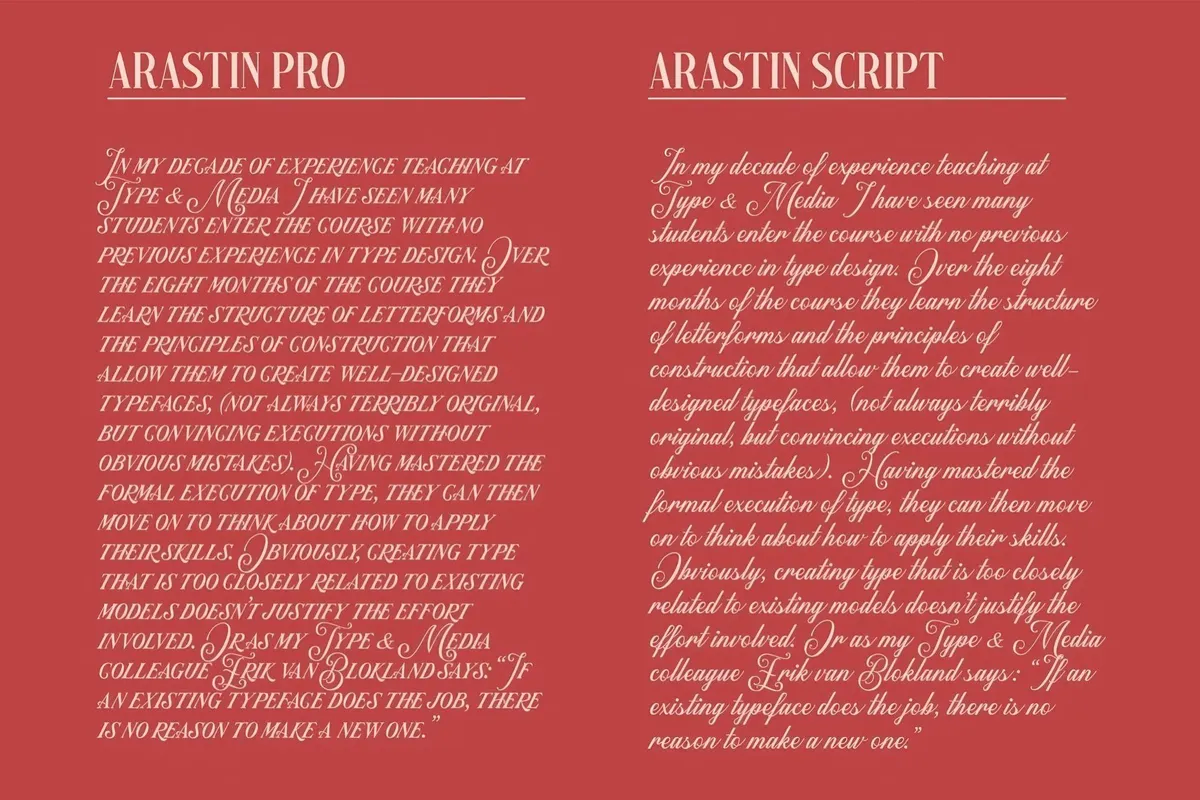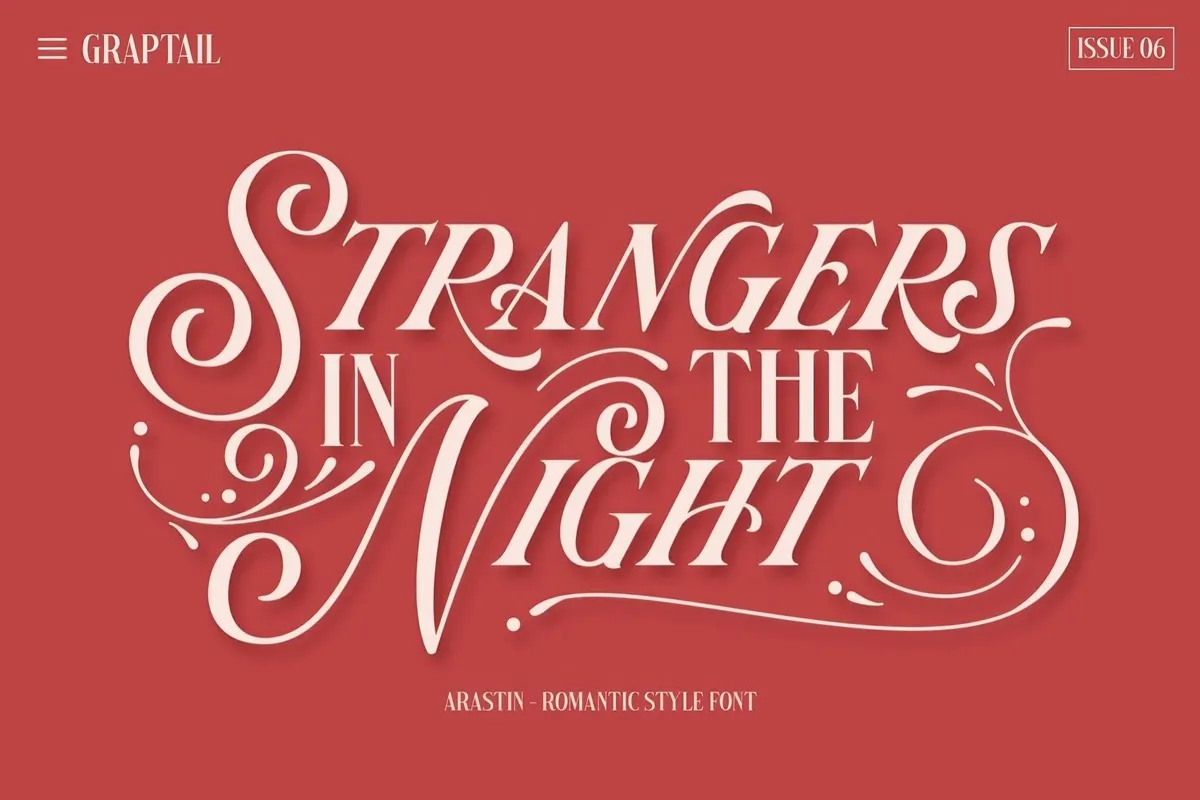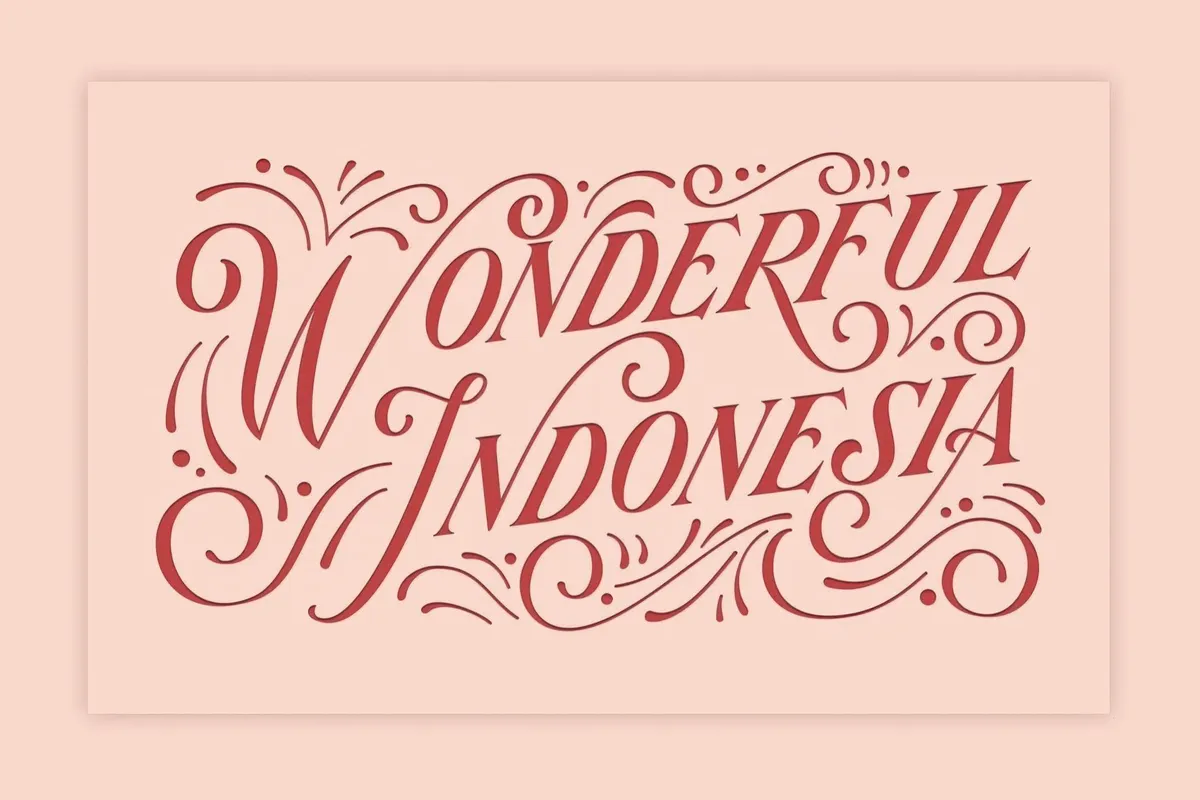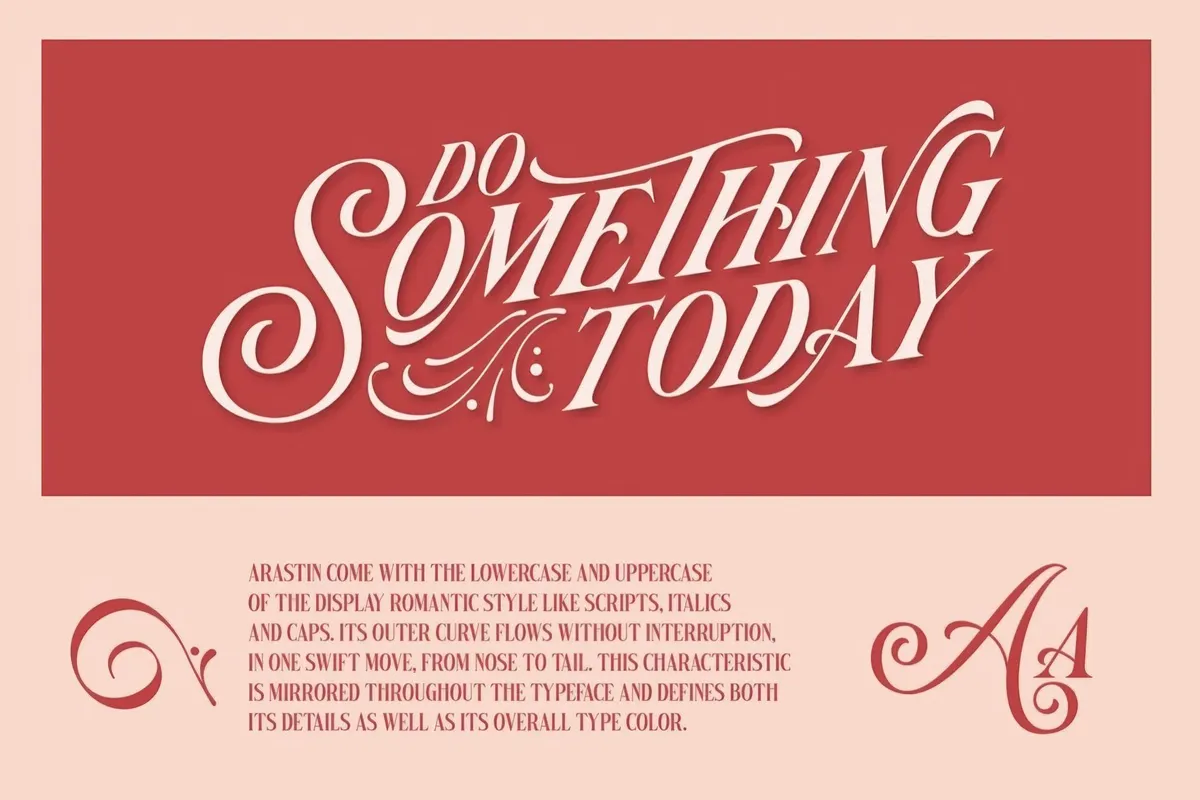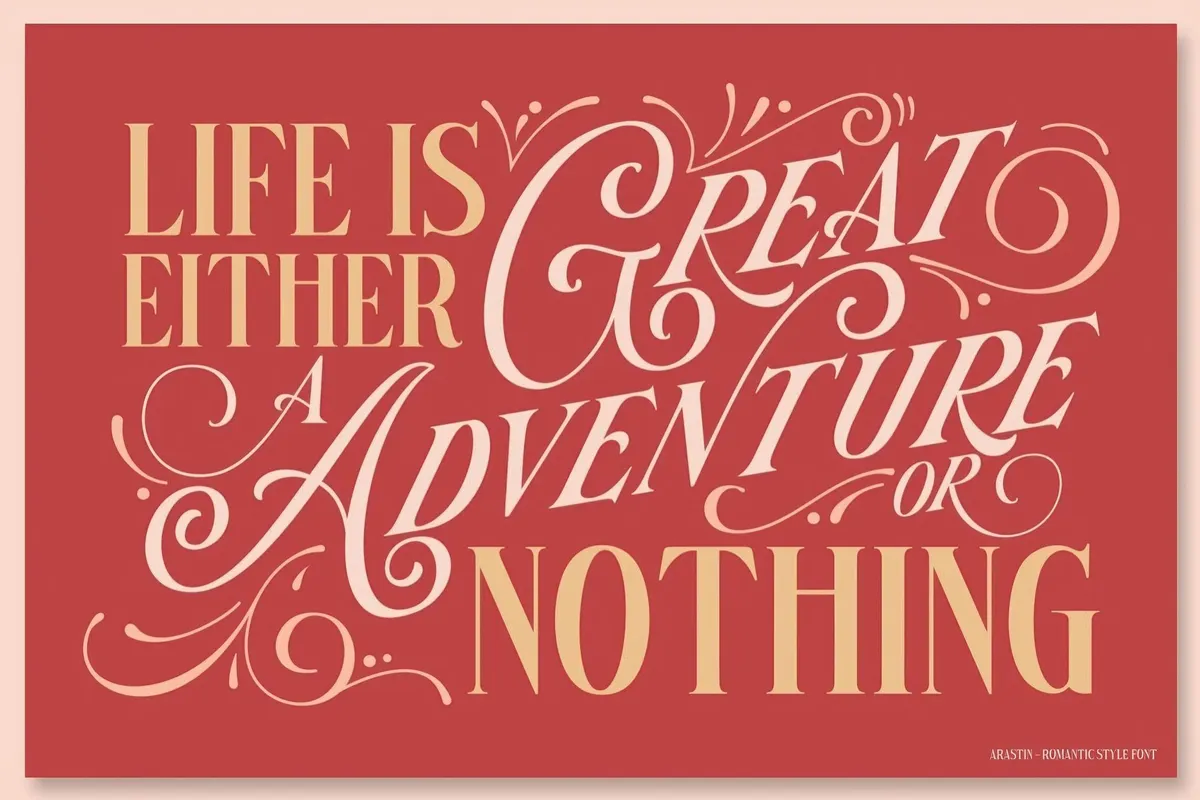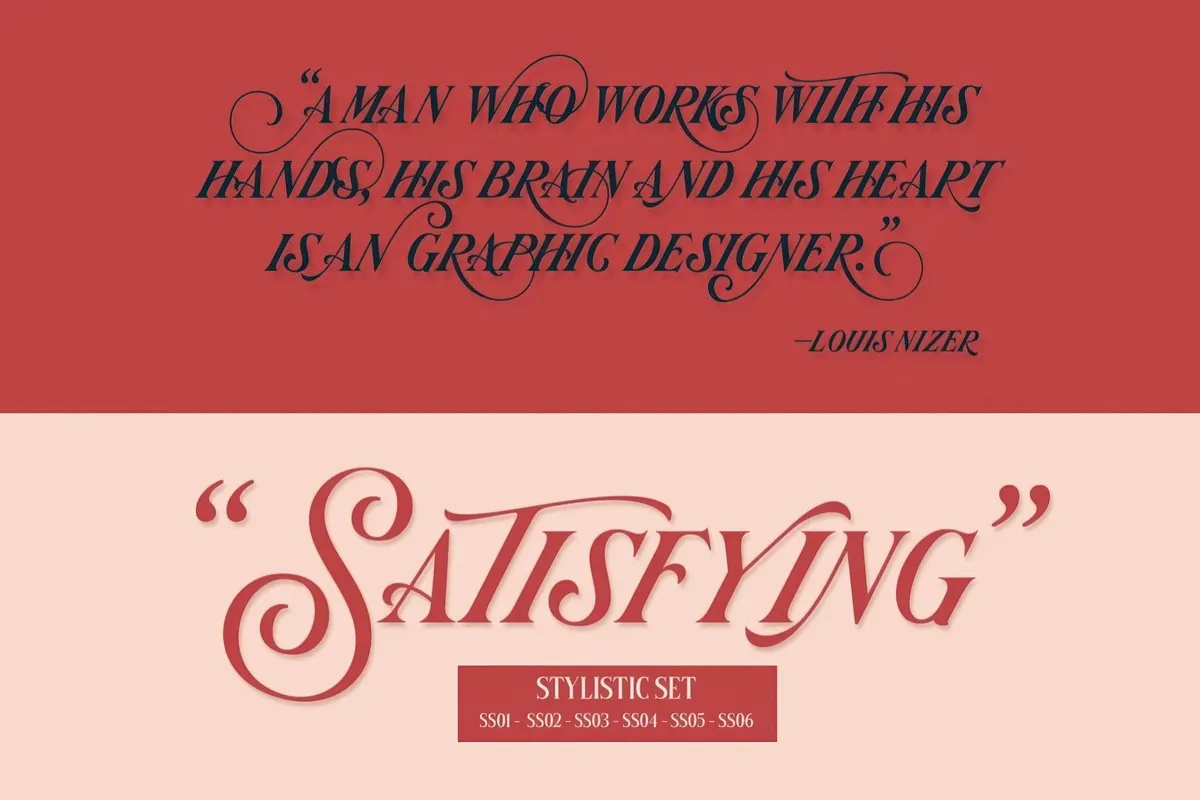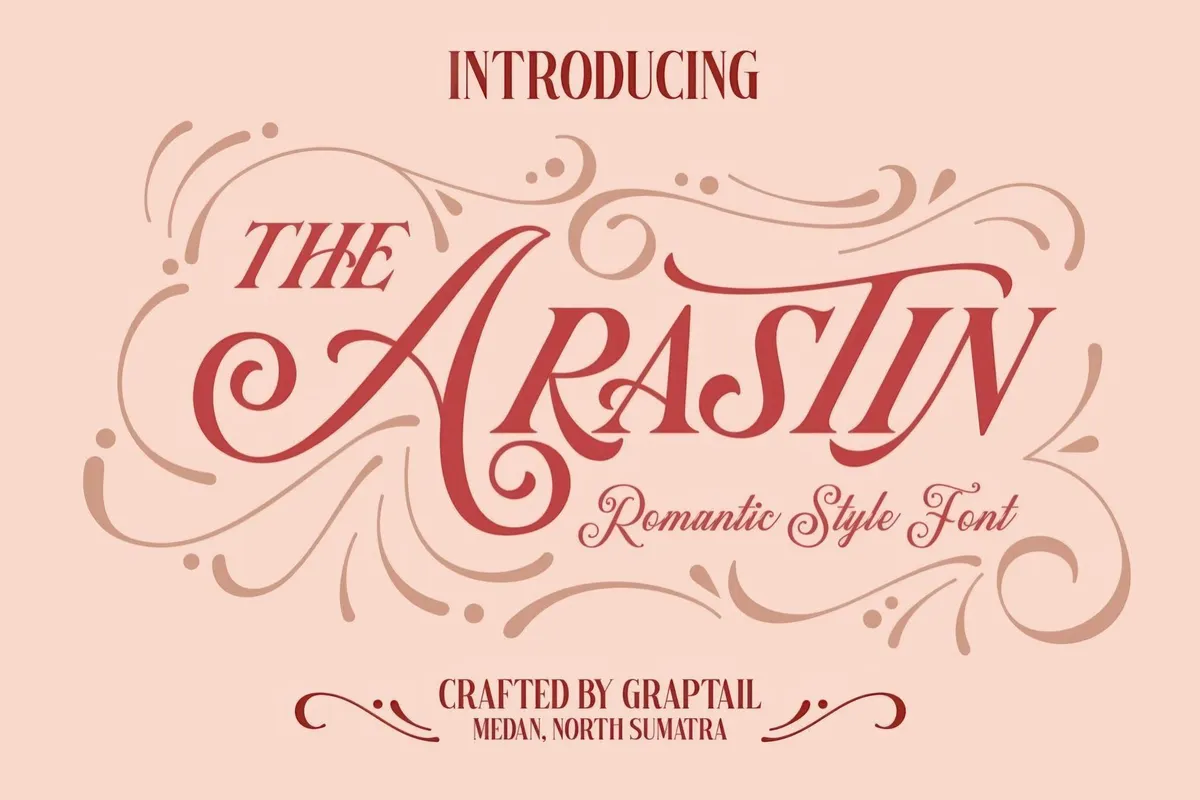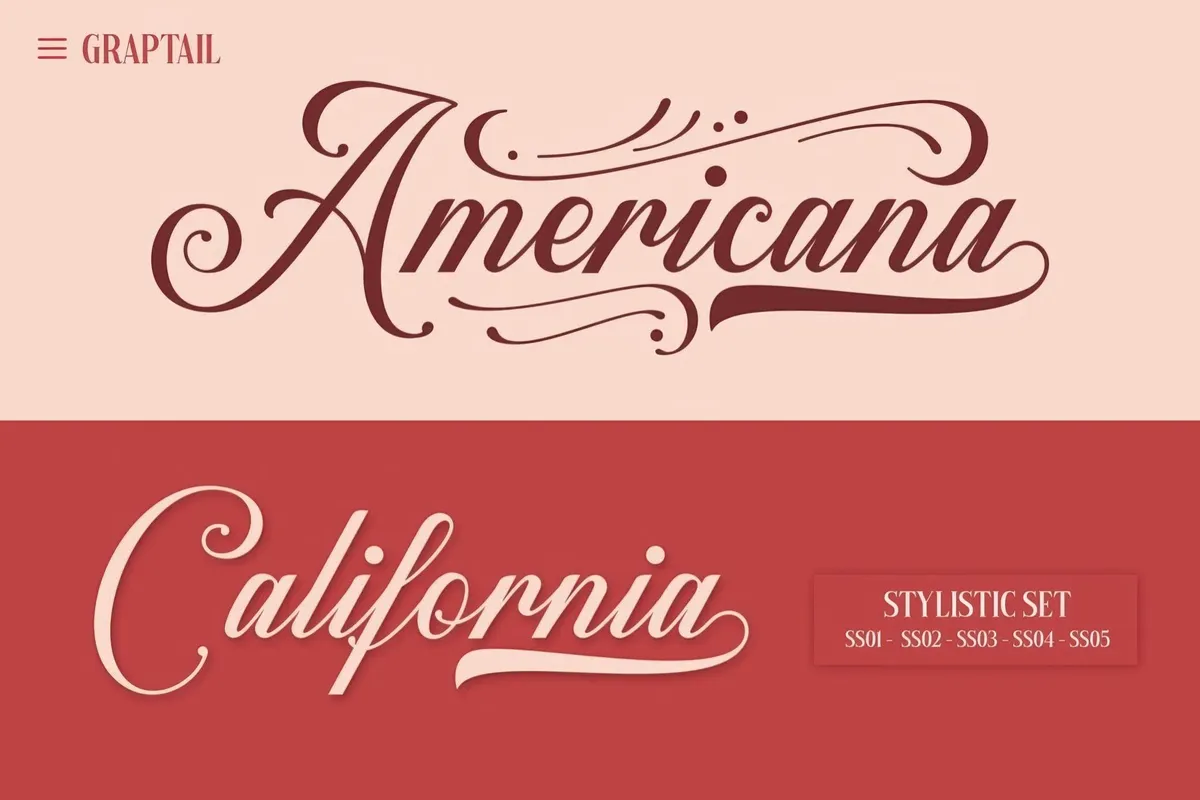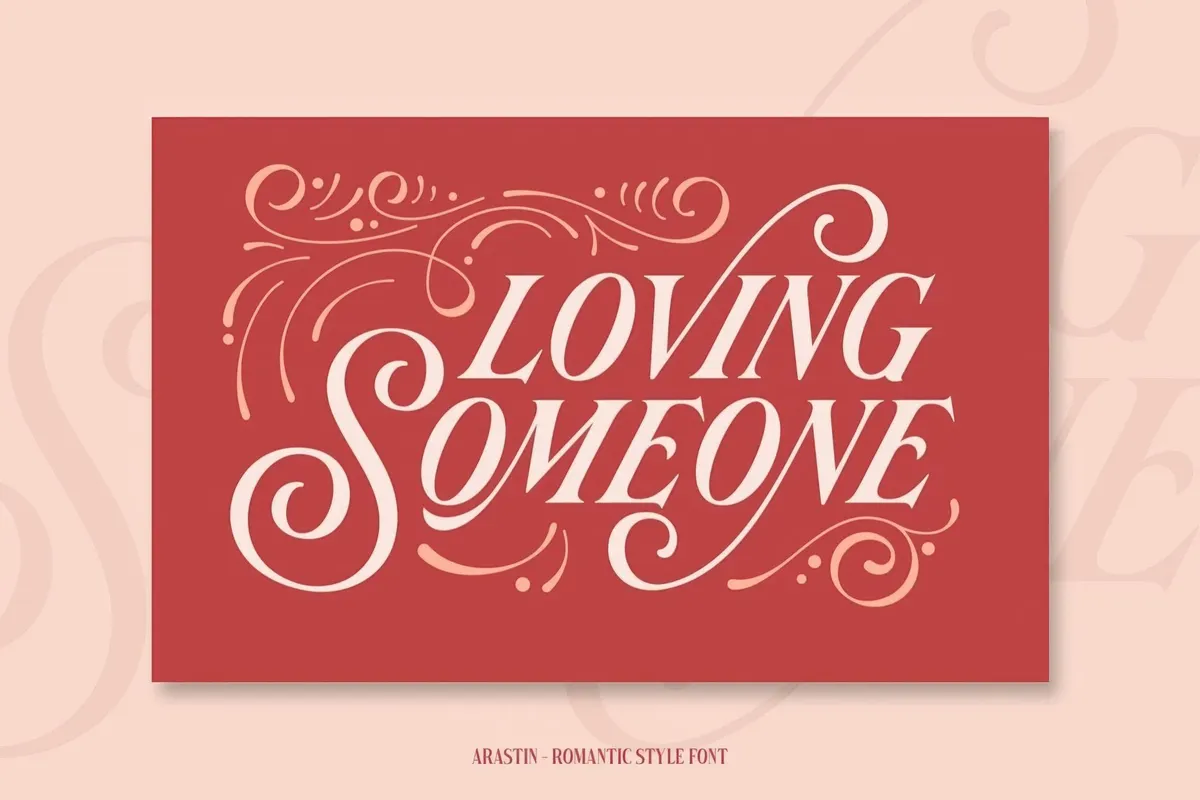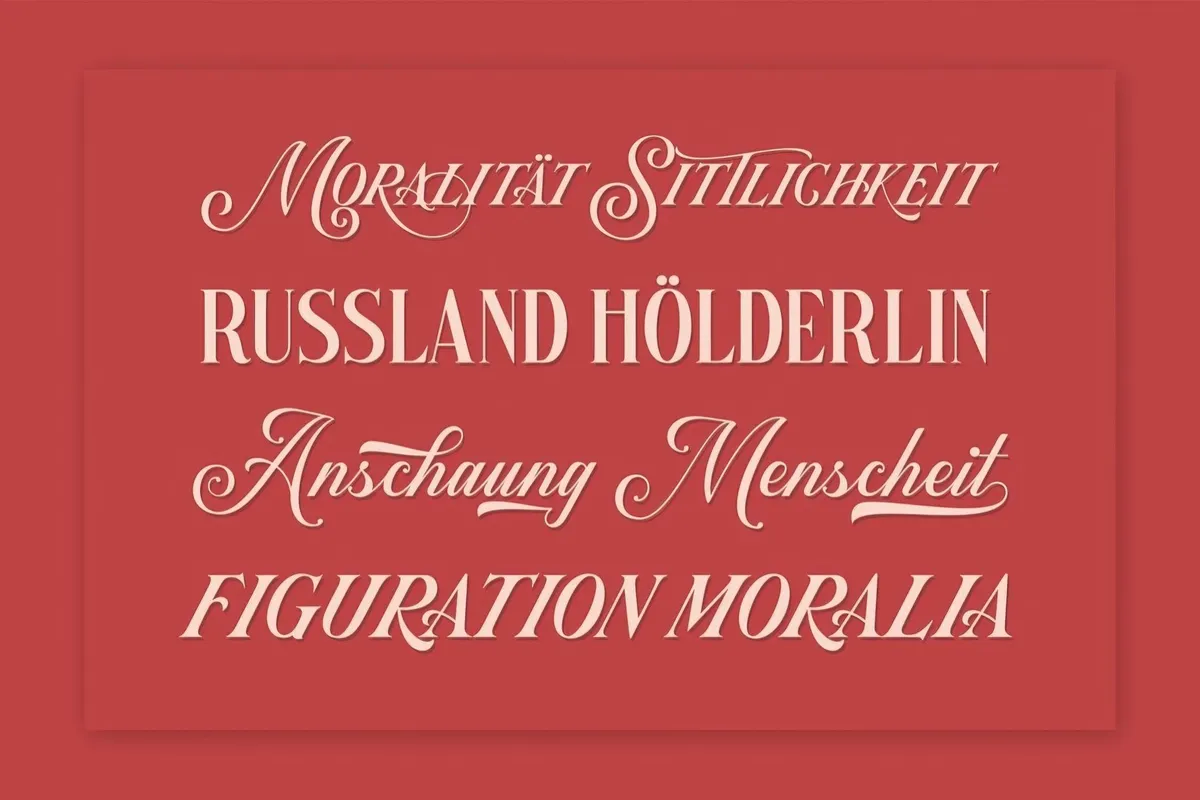
Arastin Font & Extras
With all those typographic trends, it seems like classics were left behind. Let's right the wrong with Arastin — a super elegant, romantic serif with a solid Old Hollywood look. It's got Script and Regular styles, which perfectly match or can be used on their own. The Scrpit is the diamond of this collection, showing the magnificent fluidity — that's the stylistic set. For each font, though, you will find an extended character set, which includes contextual and stylistic alternates and multilingual support.